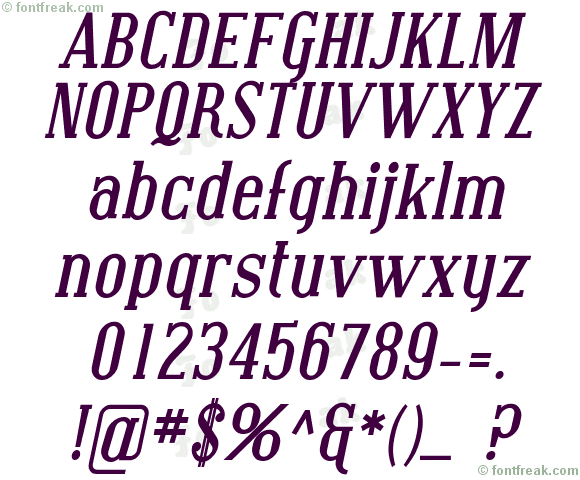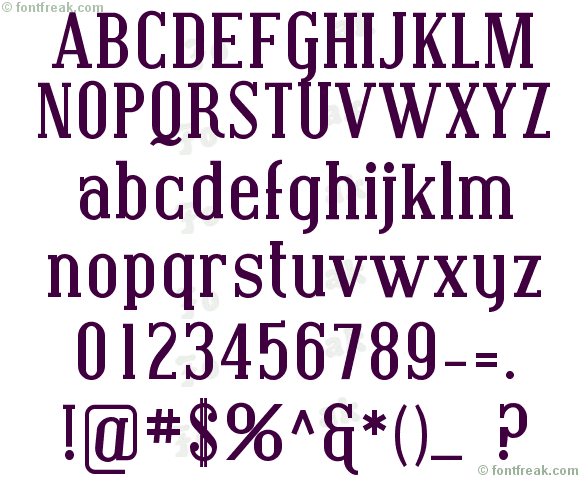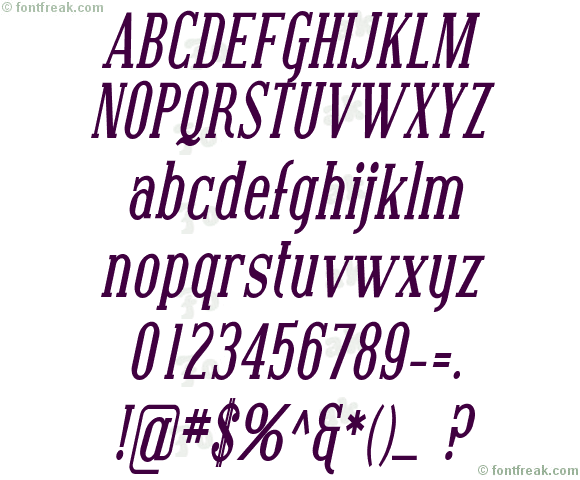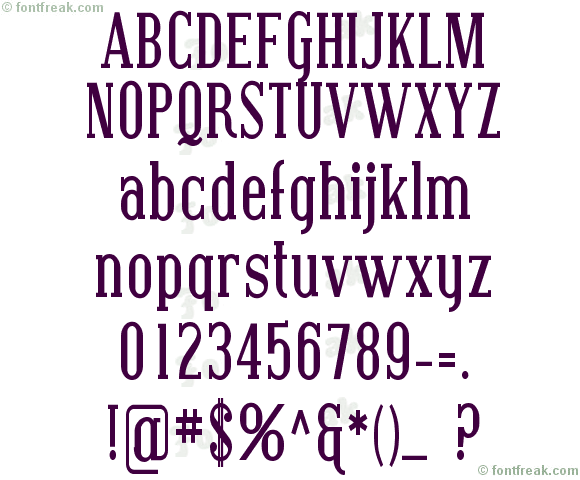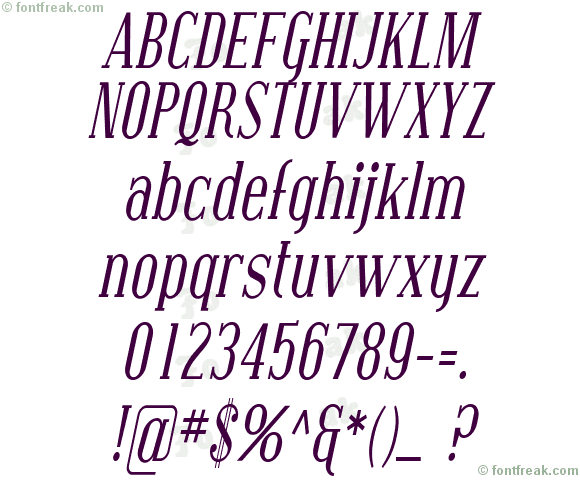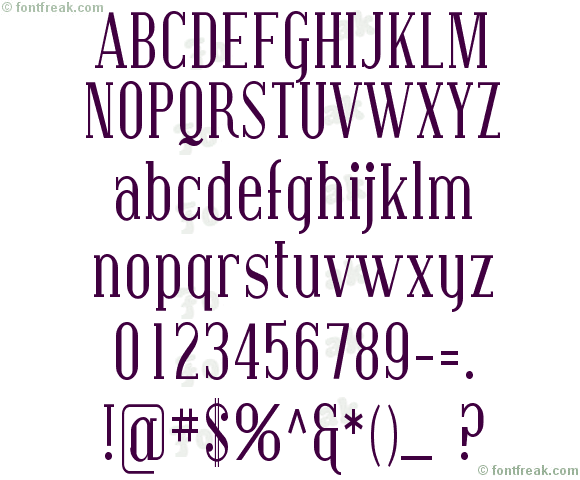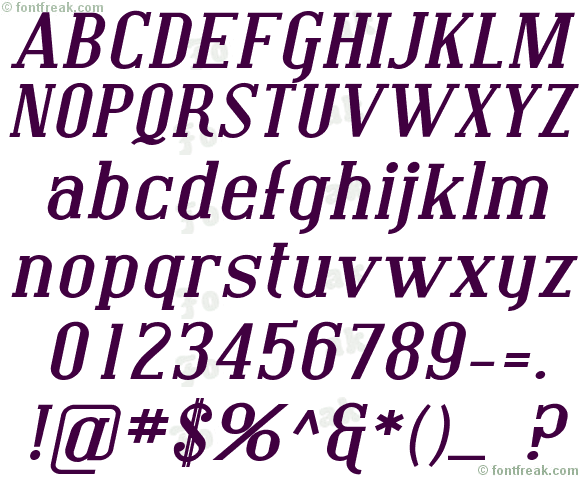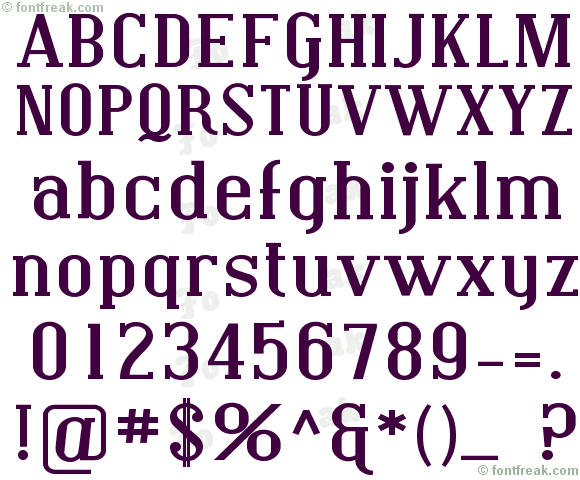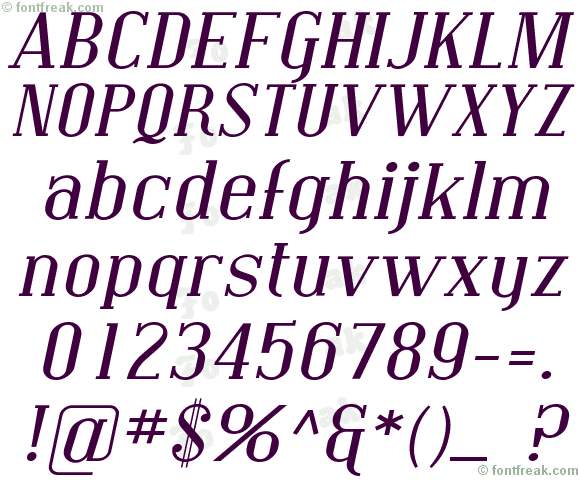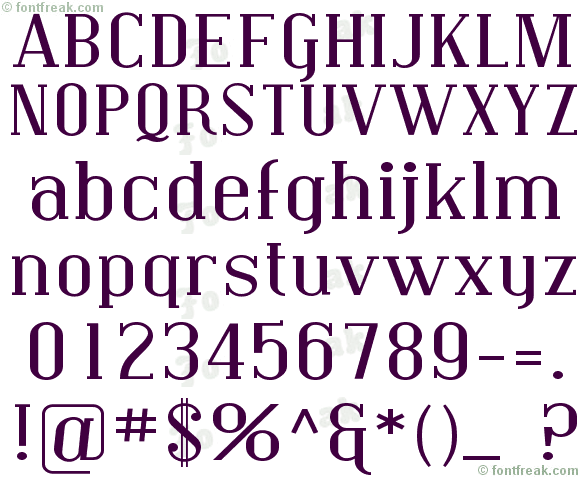
Covington is a striking serif font designed by Derek Vogelpohl, characterized by its elegant and bold appearance. The font features a medium stroke weight, offering a balanced contrast that enhances readability while maintaining a sophisticated aesthetic. With its slightly condensed letterforms and generous spacing, Covington effortlessly combines classic serif elements with a modern touch, making it versatile for various design applications. The decorative elements in the font, such as the refined serifs and distinctive curves, add a unique flair that sets it apart from other typefaces.
This font is particularly well-suited for use cases that demand a touch of elegance and professionalism. Wedding invitations benefit from Covington's charming yet formal style, providing a timeless look that complements any romantic theme. Movie posters can utilize its bold presence to draw attention and convey a sense of drama and sophistication. Additionally, restaurant menus stand to gain from its readability and stylish design, making dishes appear more enticing. Graphic designers can leverage Covington for branding materials, ensuring that logos and promotional content resonate with a polished, upscale feel. Small business owners looking to elevate their marketing materials will find this font an excellent choice for brochures and flyers, creating a lasting impression on potential customers.